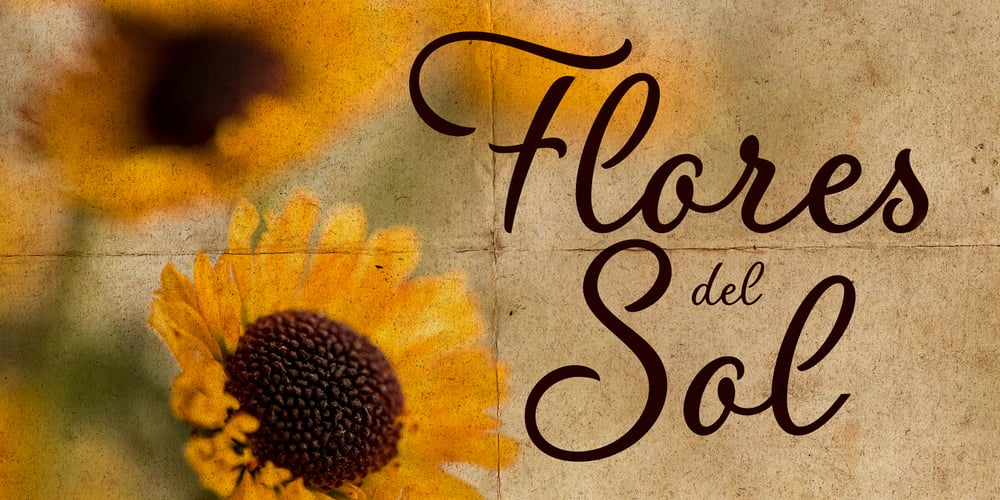
Flores del Sol
Flores del Sol font
Flores del Sol Font Family was designed by Roland Hüse and published by Roland Hüse Design. Flores del Sol contains 1 styles and family package options. Flores del Sol is a cursive, calligraphic script font with swashed characters, ligatures and full latin and cyrillic support.It is elegant yet friendly and playful and is perfect for logotypes, floral and boutique themes, products T-shirts, scrapbooking postcards or even weddings and name cards.Hope you like this one, good luck with your creative projects!Any questions, feedback or customiztion request please contact me.Cheers, Roland